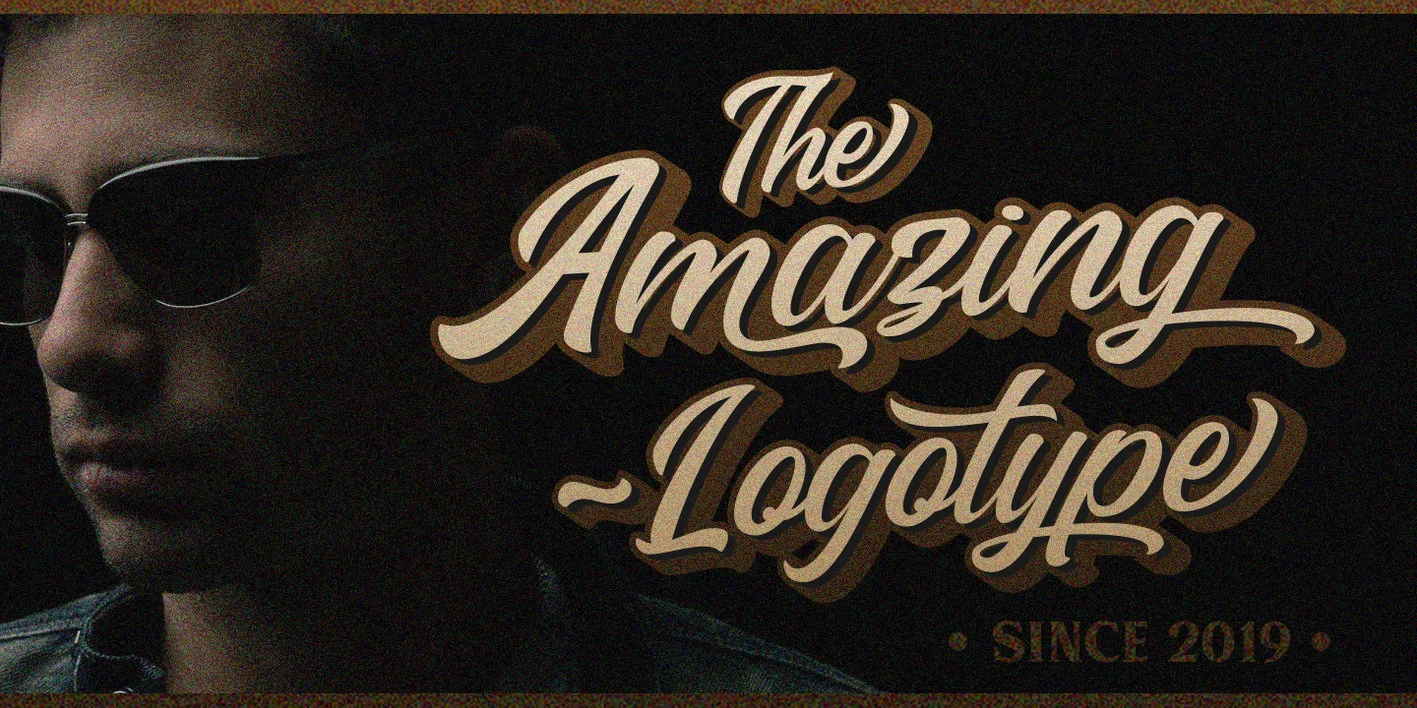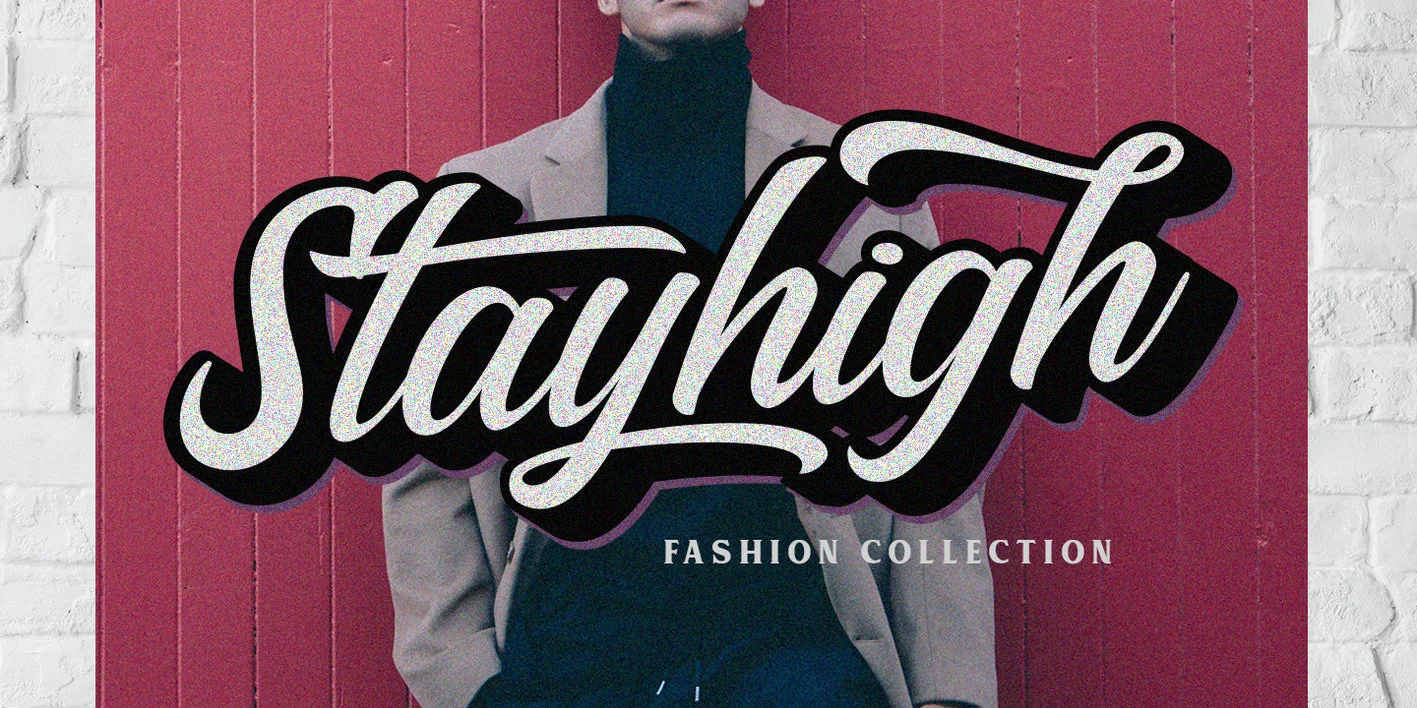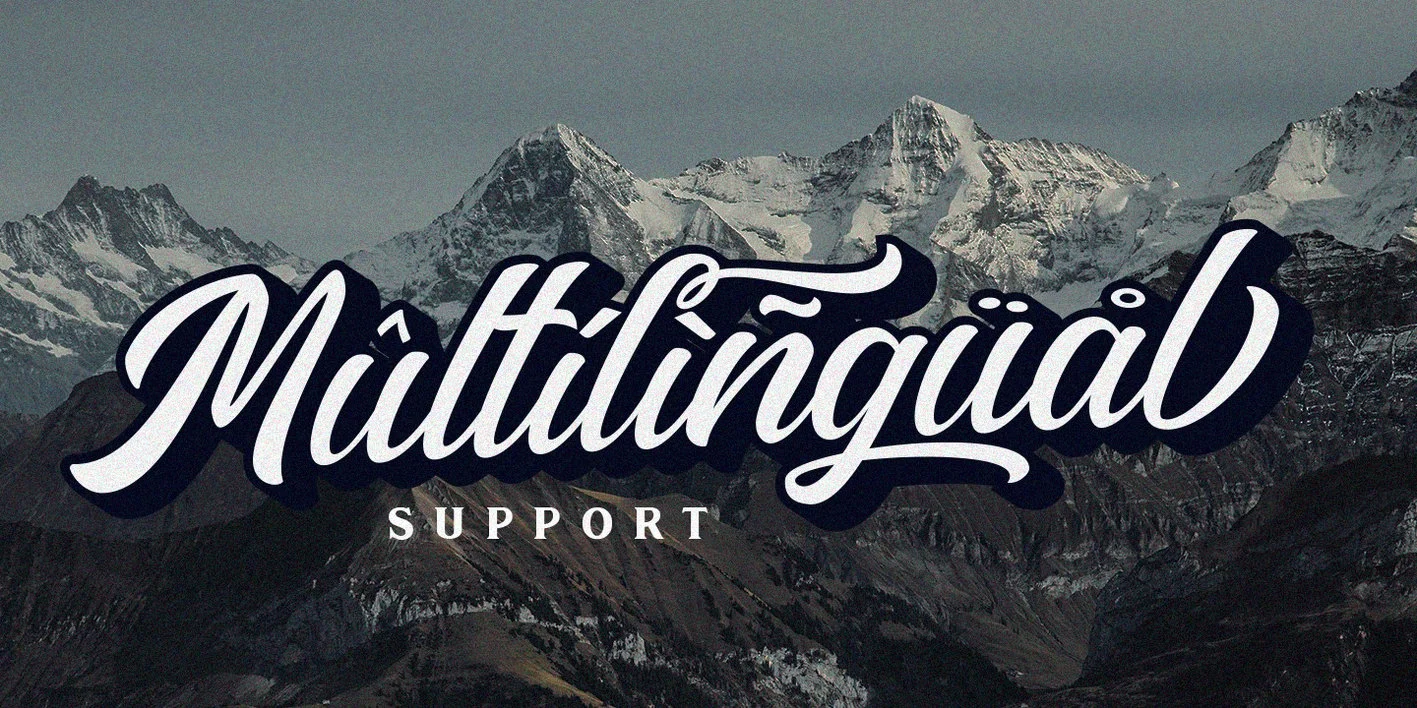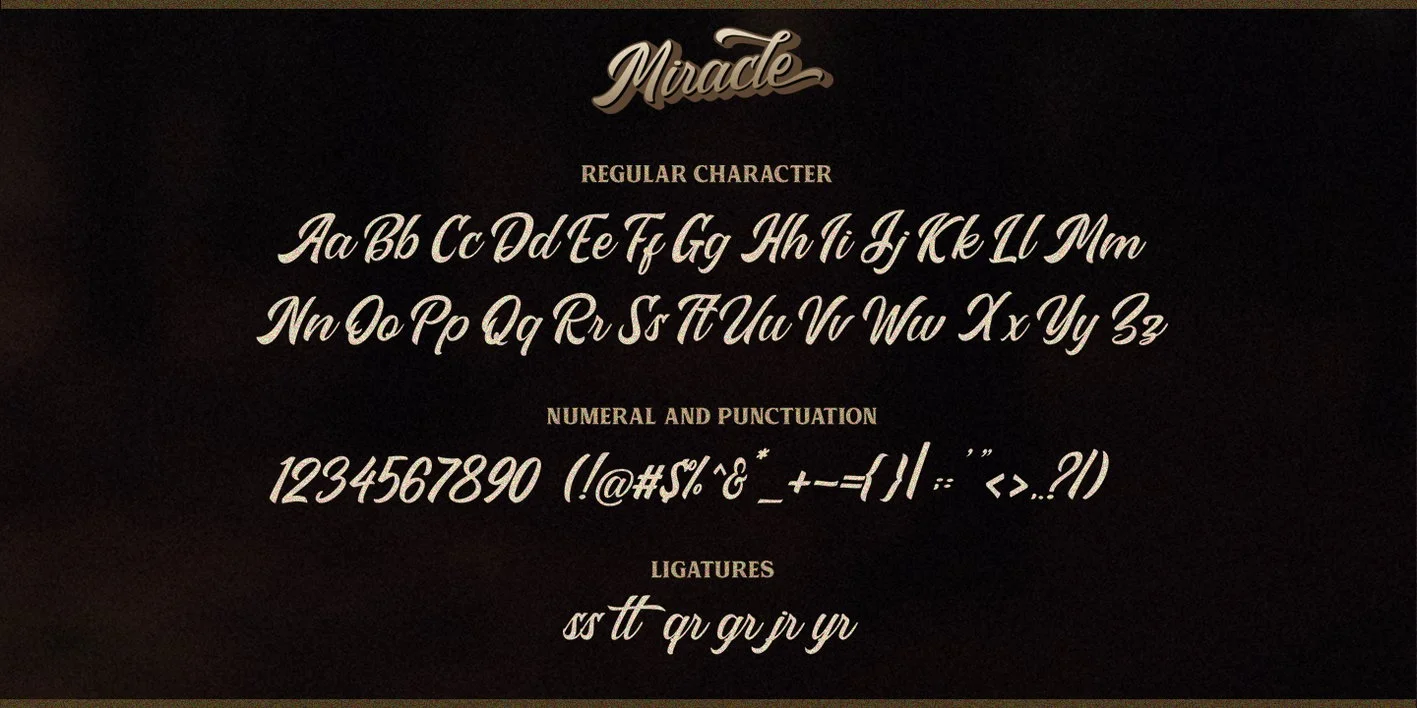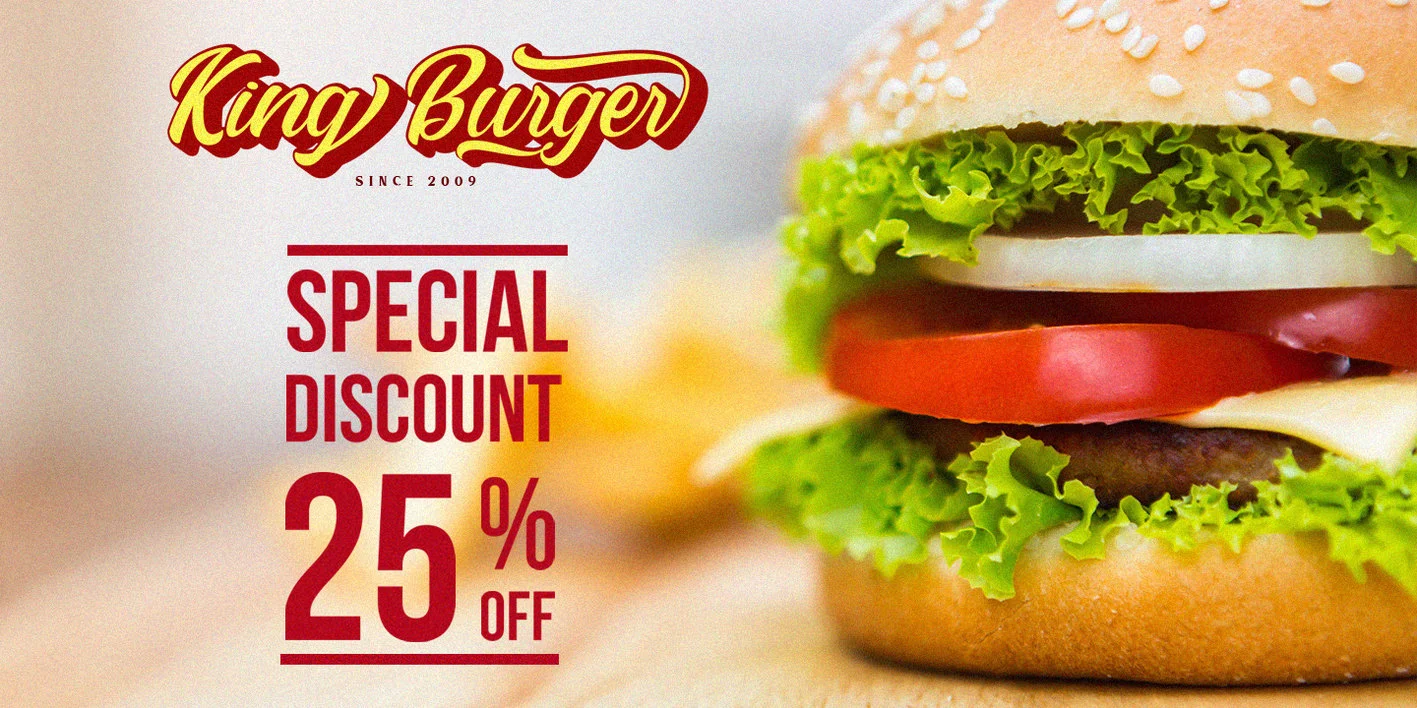
Miracle Script Font
There is a particular satisfaction in finding a typeface that delivers versatility across print and screen contexts without compromise. Miracle Script consistently provides it. The typeface brings an elegant, calligraphic sensibility to a broad range of creative disciplines, with the kind of restraint that lets content lead that holds up whether the work is print-first or screen-first.
In practice, Miracle Script proves particularly effective for perfume labels, logo design, poster creation, fragrance labels, brand identity systems. Designers reaching for it find that the type decisions feel resolved rather than laboured — a useful quality when client timelines are tight.
The range of applications extends to fashion editorials, advertising campaigns, wedding invitations, beauty packaging. That breadth is deliberate: the proportions and spacing were stress-tested across a wide range of mock briefs before the typeface was finalised.
At smaller sizes the design retains its character without becoming cluttered. This resilience across scales makes Miracle Script equally suitable for a business card and a billboard — a useful property when assets must scale across a campaign.
UX designers establishing typographic systems for digital products find Miracle Script a reliable choice for projects that demand both personality and restraint. The design avoids the self-conscious quirkiness that dates quickly, settling instead for considered distinctiveness that holds up over time.